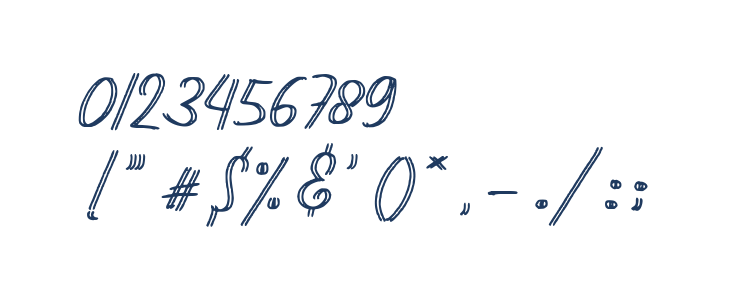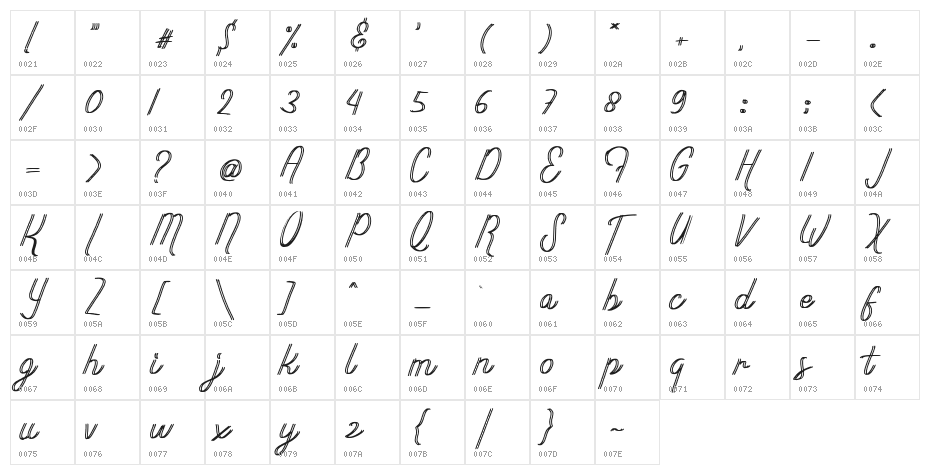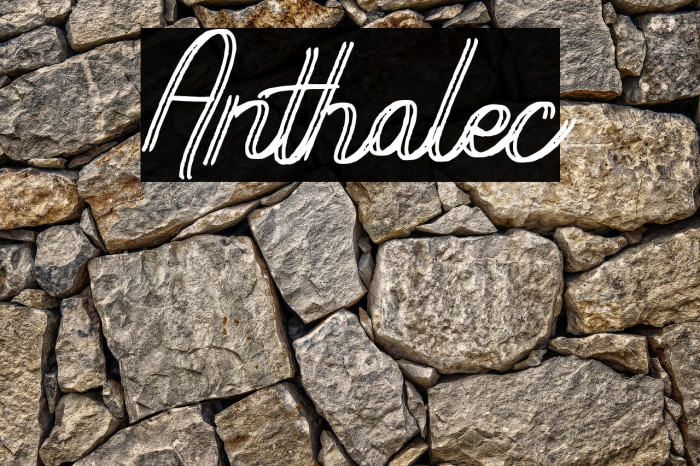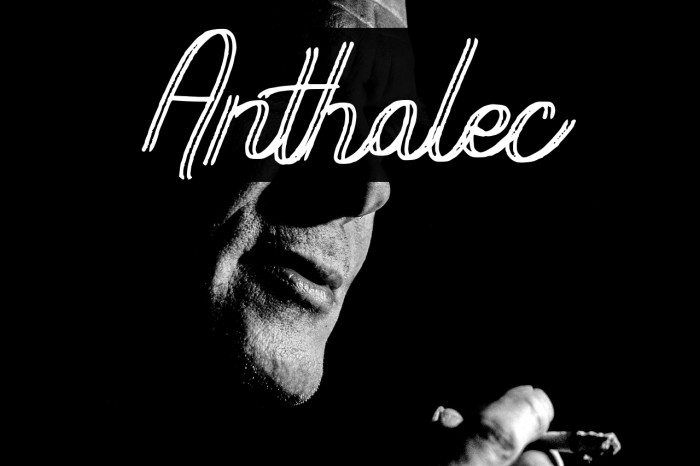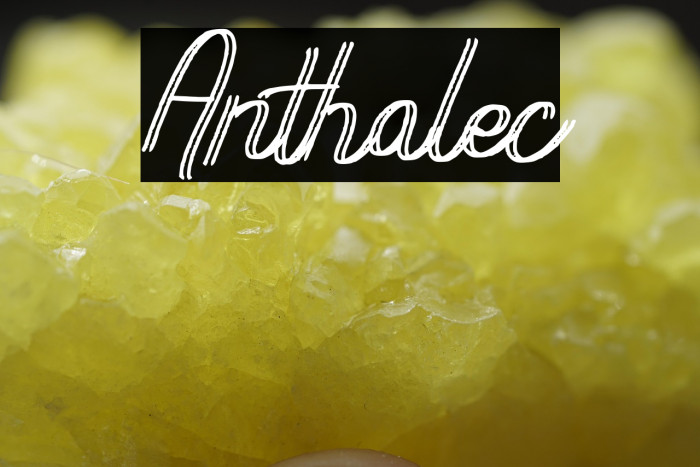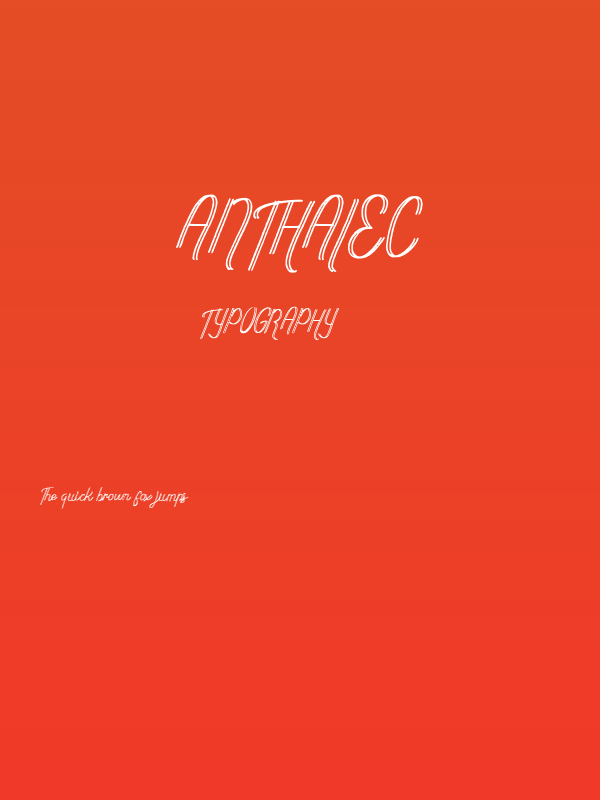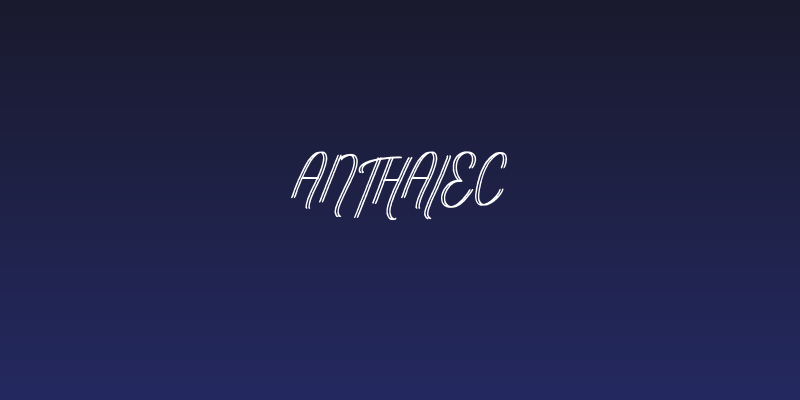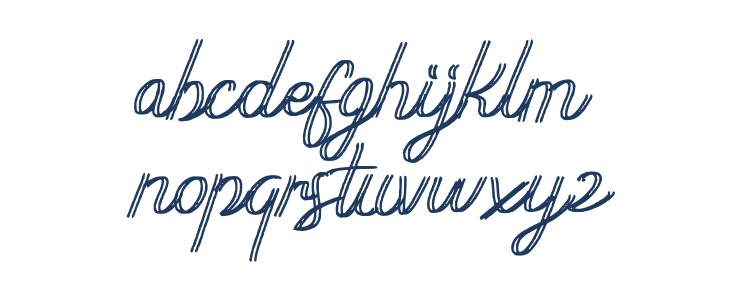
Anthalec Font
Anthalec Description
This font features a dynamic and flowing script style with a modern twist. The characters are elongated and slightly slanted, giving a sense of movement and elegance. The uppercase letters are bold and prominent, while the lowercase letters maintain a consistent flow with subtle loops and curves. The numbers and special characters are designed to match the overall aesthetic, providing a cohesive look. The strokes are consistent in thickness, offering a medium contrast that enhances readability while maintaining a stylish appearance.